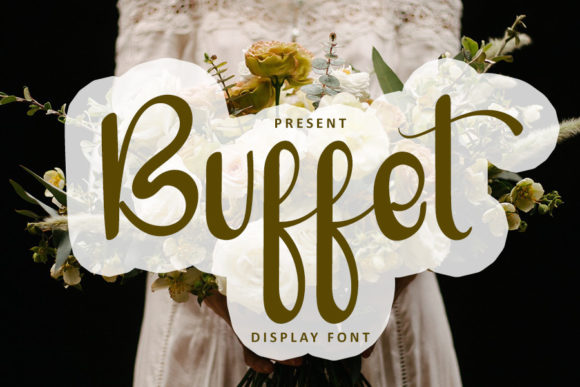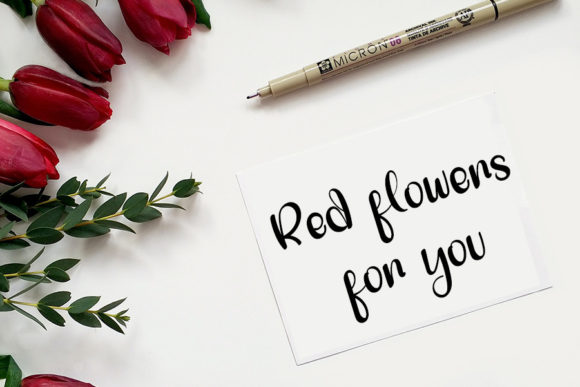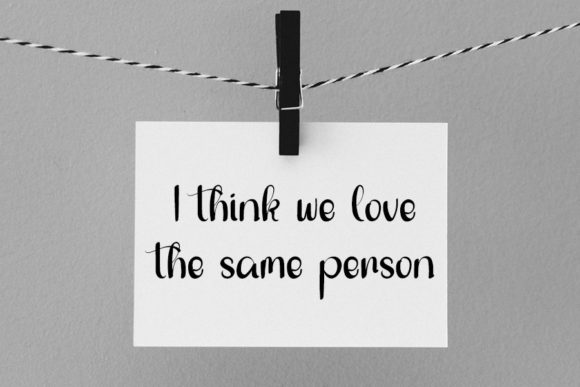
About Buffet Font
Buffet is a sophisticated and modern handwritten font that captures the essence of classic calligraphy while infusing it with a contemporary flair. Its impeccable form and balanced design make it an excellent choice to elevate the aesthetic appeal of your diverse range of projects.
With its stylish and elegant strokes, Buffet adds a touch of refinement to your designs, making it a versatile option for various creative endeavors.
For branding and logo design, Buffet brings a sense of sophistication and uniqueness. Its contemporary twist on classic calligraphy lends a distinctive look to your brand identity, helping your business stand out and leave a lasting impression on your audience.
In print materials like invitations, Buffet’s graceful and varied letterforms can set the tone for upscale events and special occasions. Whether it’s weddings, galas, or other celebrations, the font adds a touch of elegance that complements the overall theme and atmosphere.
Buffet’s contemporary atmosphere also shines in digital media. Use it for social media graphics, website headers, and blog posts to create a visually appealing and engaging online presence. The font’s form and style lend themselves well to creating eye-catching visuals that resonate with your audience.
In editorial design, Buffet’s impeccable form contributes to creating visually pleasing layouts for magazines, brochures, and books. Its varied strokes and balanced composition add a dynamic and captivating element to your printed materials.
Buffet’s contemporary calligraphy can also enhance packaging and product design. Whether it’s luxury goods, cosmetics, or artisanal products, the font’s stylish appeal can elevate the perceived value of your offerings.
The font’s versatility extends to home decor and crafting projects. Its unique combination of classic and modern elements makes it suitable for creating personalized wall art, quote prints, and other DIY decorations that add a touch of elegance to your living spaces.
Whether you’re working on a digital project or something more tactile, Buffet’s contemporary calligraphy offers a timeless charm that enhances the visual appeal of your creations. Its impeccable form and varied strokes contribute to a sense of beauty and sophistication that can be seamlessly integrated into a wide array of designs.